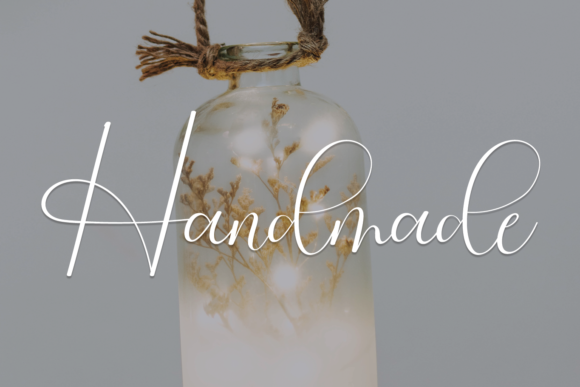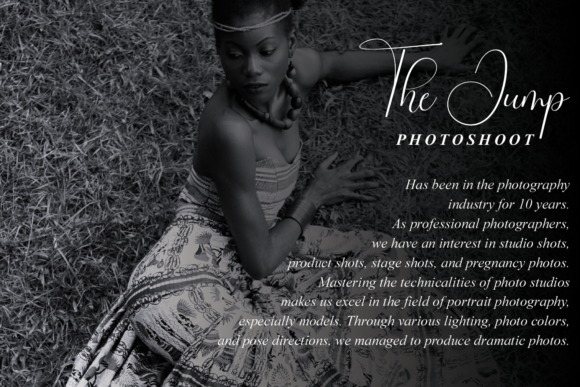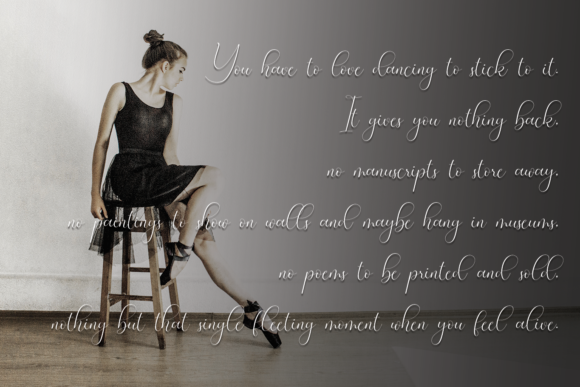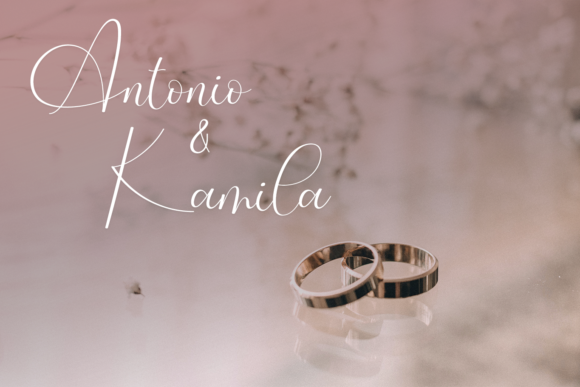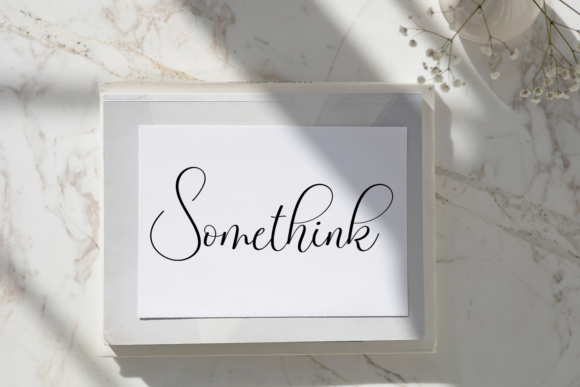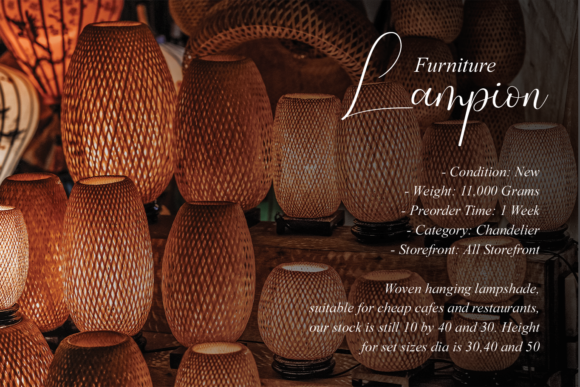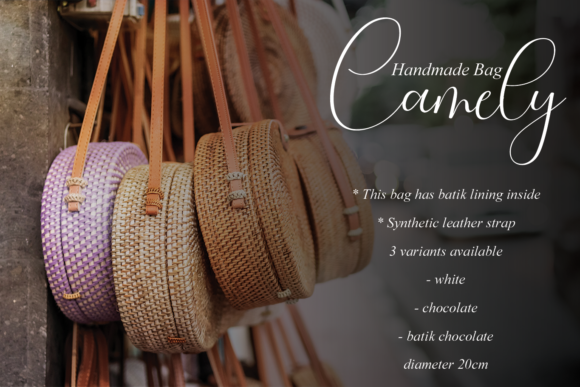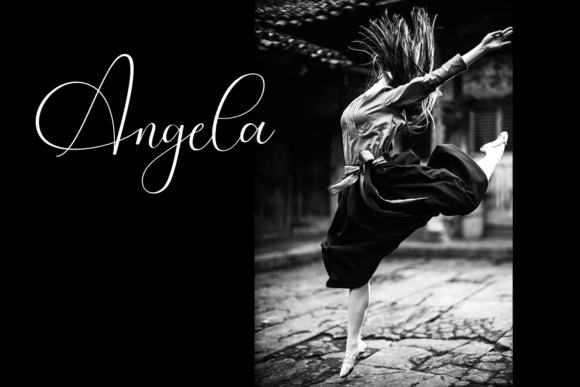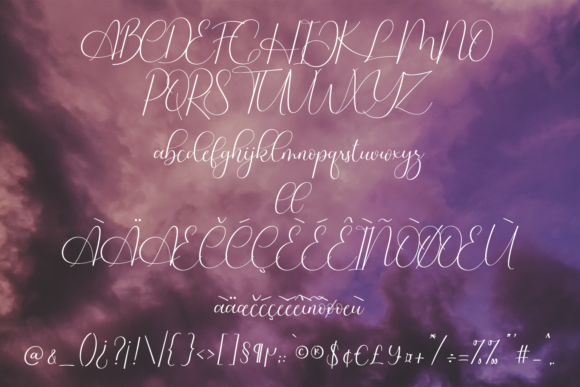
Handmade is a romantic and sweet calligraphy script font that brings a sense of luxury to your creative designs. The characters in this font appear to dance along the baseline, adding a dynamic and expressive quality to your projects. Handmade is more than just a font; it’s a design element that infuses a luxurious spark into any creative endeavor you wish to develop.
The romantic and sweet nature of Handmade makes it an ideal choice for projects that aim to convey emotions and elegance. Whether used in wedding invitations, love letters, or any creative design seeking a touch of luxury, Handmade adds a distinctive and refined aesthetic.
The calligraphy script in Handmade introduces a sense of handcrafted beauty, making it feel personalized and authentic. Its versatile nature allows it to enhance a variety of design contexts, from formal invitations to more artistic and expressive projects.
In summary, Handmade is a font that goes beyond the ordinary; it’s a romantic and sweet calligraphy script that brings a luxurious spark to your designs. Its dancing characters along the baseline add a dynamic quality, making it a standout choice for projects that demand elegance and creativity. With Handmade, your creative endeavors are elevated with a touch of romance and luxury that captures the essence of beautiful calligraphy.